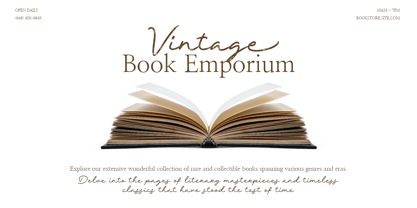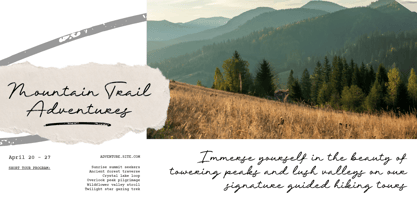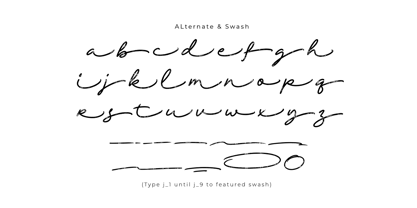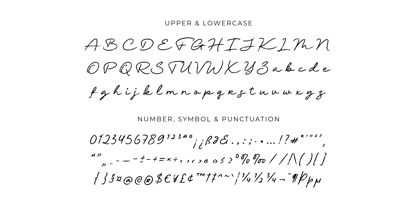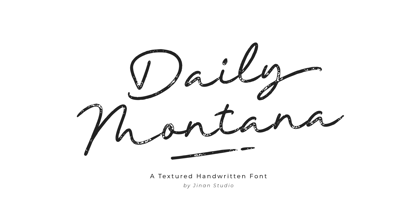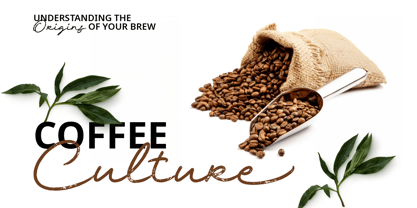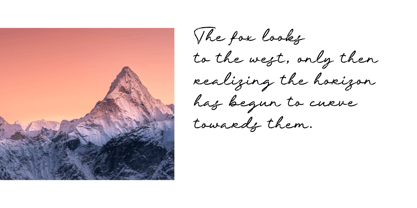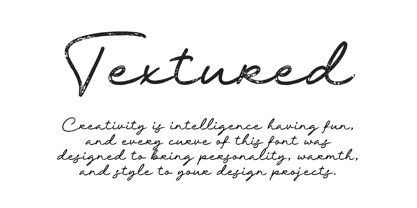
Daily Montana
by Jinan Studio
The Daily Montana Font Family was designed by Andi Syahdang, Ainun Jinan and published by Jinan Studio. Daily Montana contains 1 styles. More about this family
Introducing Daily Montana: a textured, hand-sketched font brimming with vintage allure and a touch of wanderlust inspiration. The wild, naturally drawn strokes coalesce with its coarse complexion embracing an authentic, organic essence. It flawlessly infuses warmth and individuality into any project, making it the prime choice for branding, chic poster designs, journey-focused motifs, sophisticated packaging, or captivating social media visuals. Undoubtedly versatile, Daily Montana seamlessly transitions from fine-tuning travel emblems to curating nostalgic passages. Adding to your project a robust, fashionable flair that is sure to make a stunning statement. Immerse your audience in the compelling charm of Daily Montana.